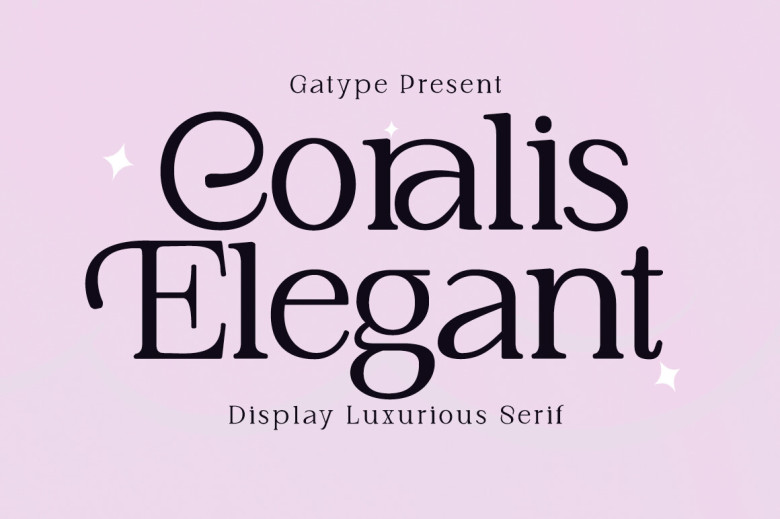
Coralis Elegant Font
Coralis Elegant is an elegant serif typeface, inspired by modern Display serifs. Designed for elegance and beauty, its thick yet balanced and diverse characters combine perfectly for elegance. My example shows how this script could be utilized, perfect for branding, logotypes marriage invitations romance cards packaging retro labels spelling name spelling among many other applications.
Coralis Elegant includes Uppercase lettering numbers punctuation as well as numerous alternate characters such as starting and ending sweeps alongside its main characters.
Coralis Elegant Serif Font